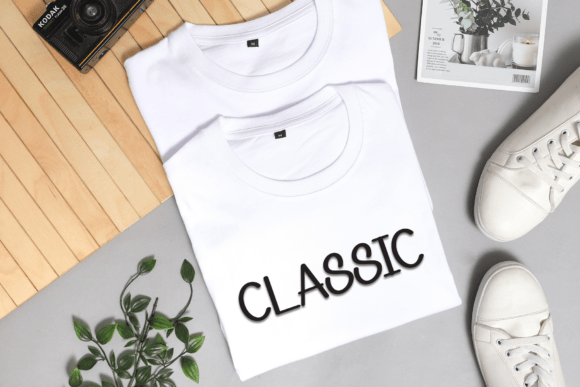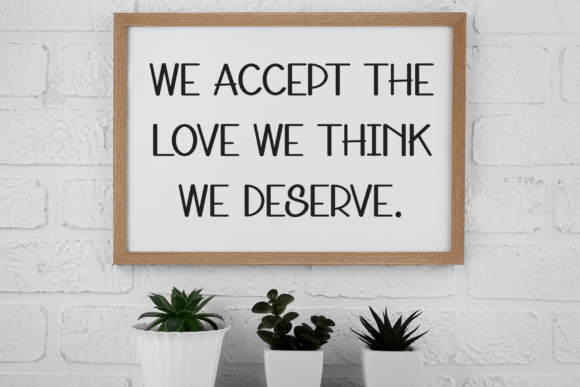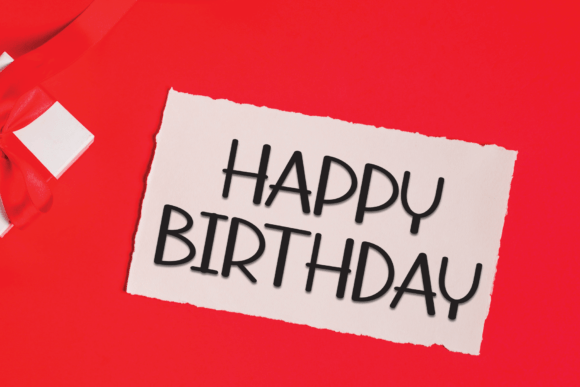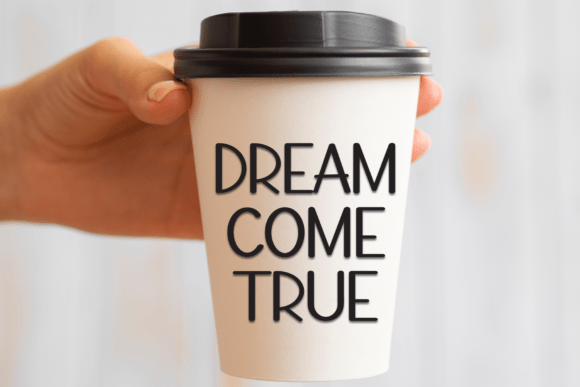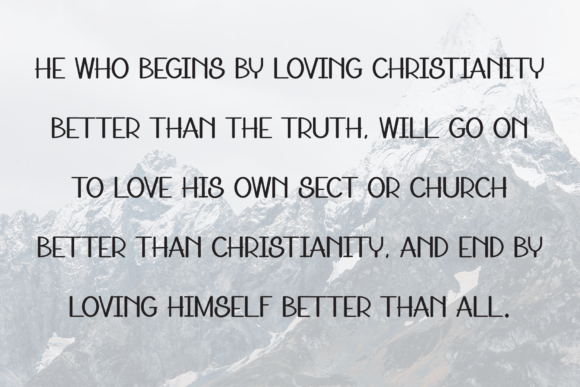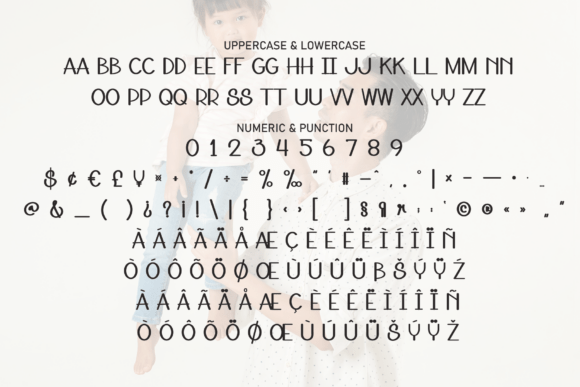
The Designer’s Delight: Exploring the Charm of Daddy Handsome Font
I’ll never forget the time I was working on a branding project for a new coffee shop. My client wanted a font that was friendly, approachable, and modern, but I was struggling to find the perfect fit. That’s when I stumbled upon Daddy Handsome Font, and it instantly clicked. The clean lines, balanced letterforms, and subtle rounded edges made it an instant winner. In this article, I’ll share my experience with Daddy Handsome Font, its features, and how to make the most of it in your designs.
Here’s what I’m obsessed with about Daddy Handsome Font:
- ✨ Clean and modern aesthetic: The font’s simplicity and elegance make it perfect for a wide range of design projects.
- ✅ Excellent legibility: The crisp structure and balanced letterforms ensure that your text is easy to read, even at smaller sizes.
- 💕 Warm and inviting vibe: The subtle rounded edges give the font a friendly, approachable feel that’s perfect for branding and packaging.
As for quirks, I’ve noticed a few:
- 🤔 Limited use of OpenType features: While Daddy Handsome Font does offer some OpenType features, it’s not as extensive as some other fonts.
- ⚠️ May not be suitable for very small text: While the font is generally legible, it may not be the best choice for very small text, such as body copy or captions.
The Story Behind Daddy Handsome Font
Daddy Handsome Font was designed with the intention of creating a modern, yet approachable font that captures the essence of handwritten typography. The designer aimed to create a font that’s both clean and elegant, yet friendly and inviting. While the exact story behind the font’s creation is unclear, it’s evident that the designer succeeded in creating a versatile and charming font.
| What type of projects is Daddy Handsome Font best suited for? | Daddy Handsome Font is ideal for branding, packaging, headlines, and digital content, where a friendly and approachable vibe is desired. |
| Is Daddy Handsome Font available in different weights or styles? | Yes, Daddy Handsome Font comes in various weights and styles, making it versatile for different design applications. |